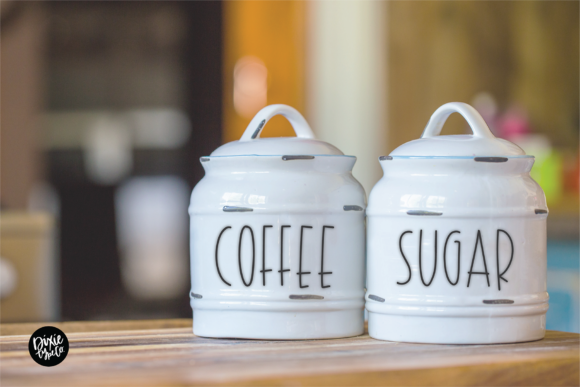
Shiplap Font
Shiplap is a cute and casual sans serif font with an undeniably clean feel. With its neat and beautiful arrangement of letters, this typeface will look outstanding in both formal and non-formal designs.